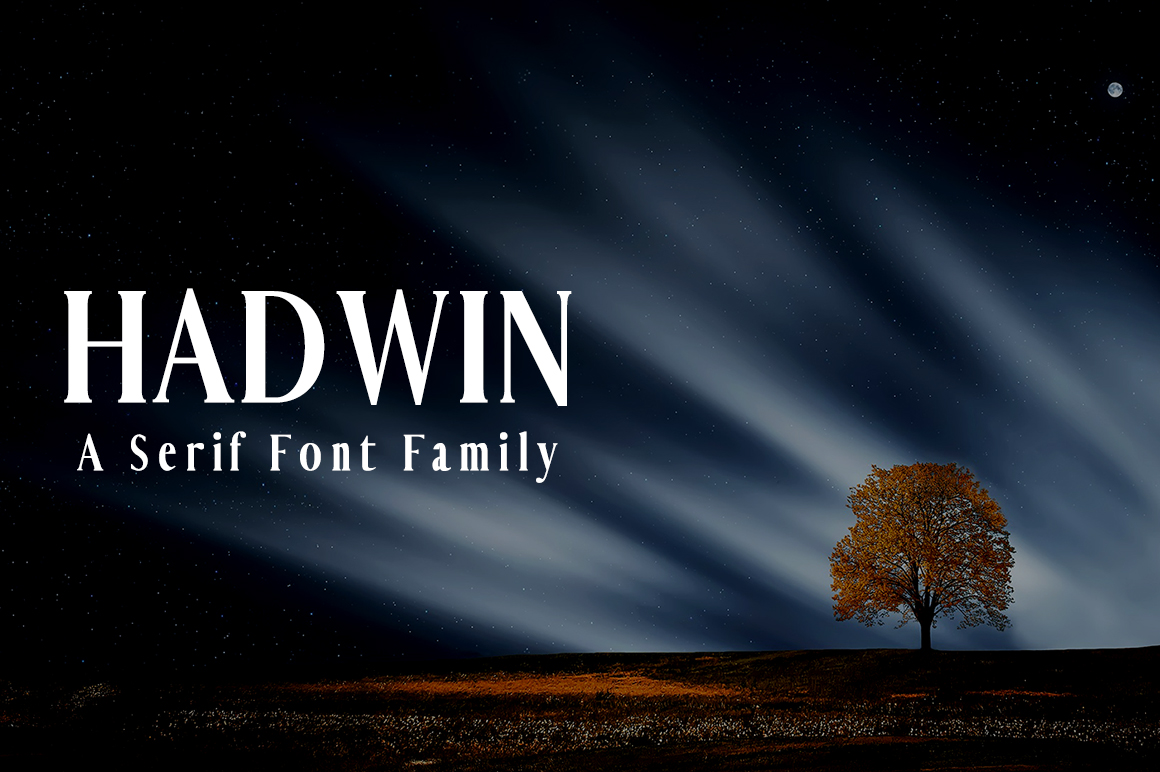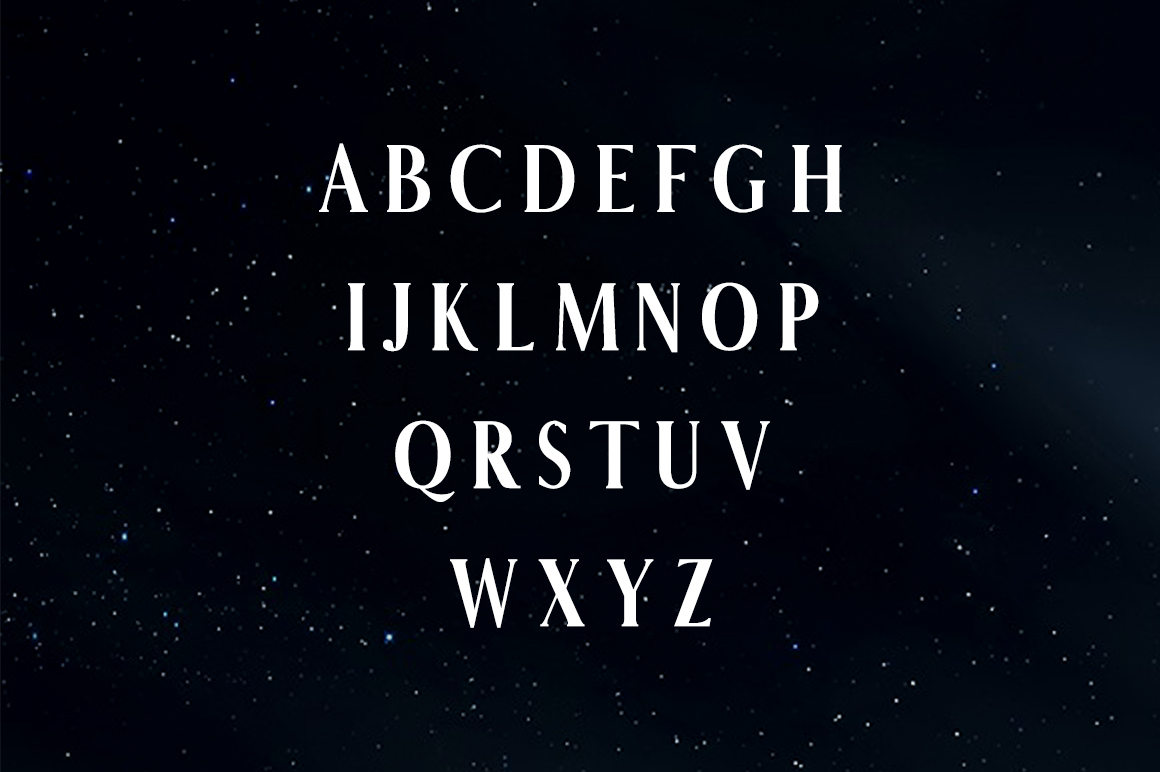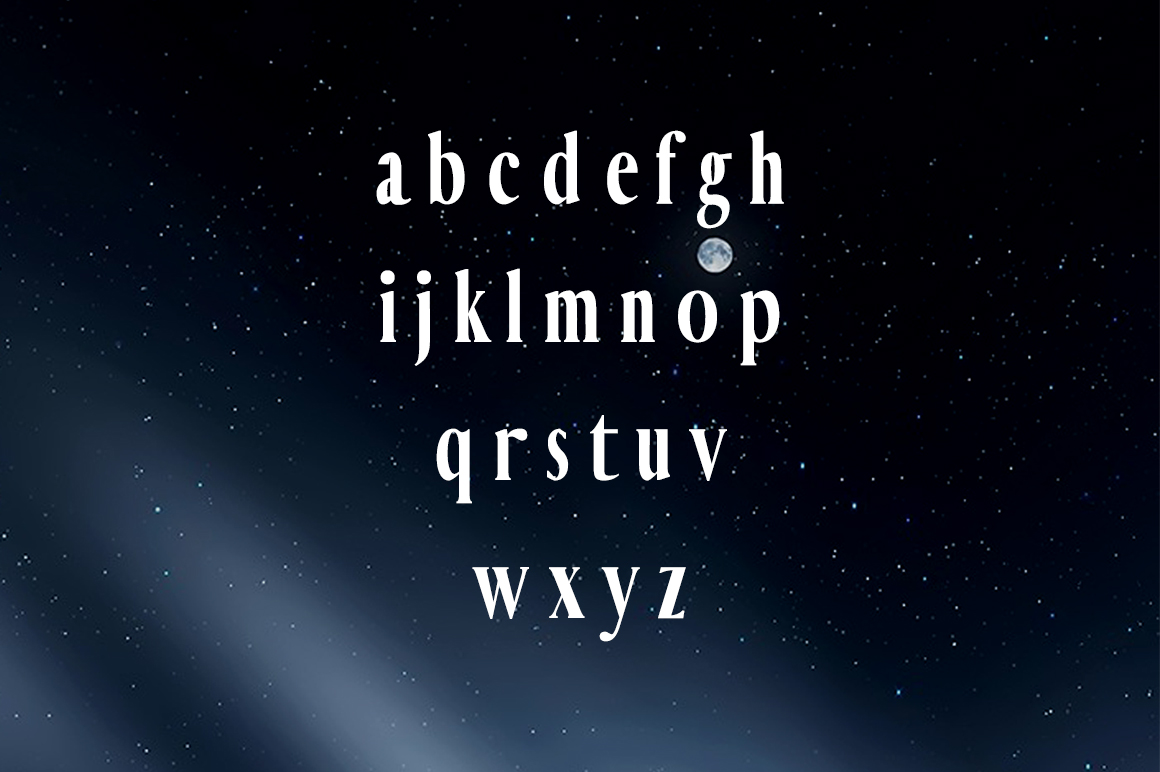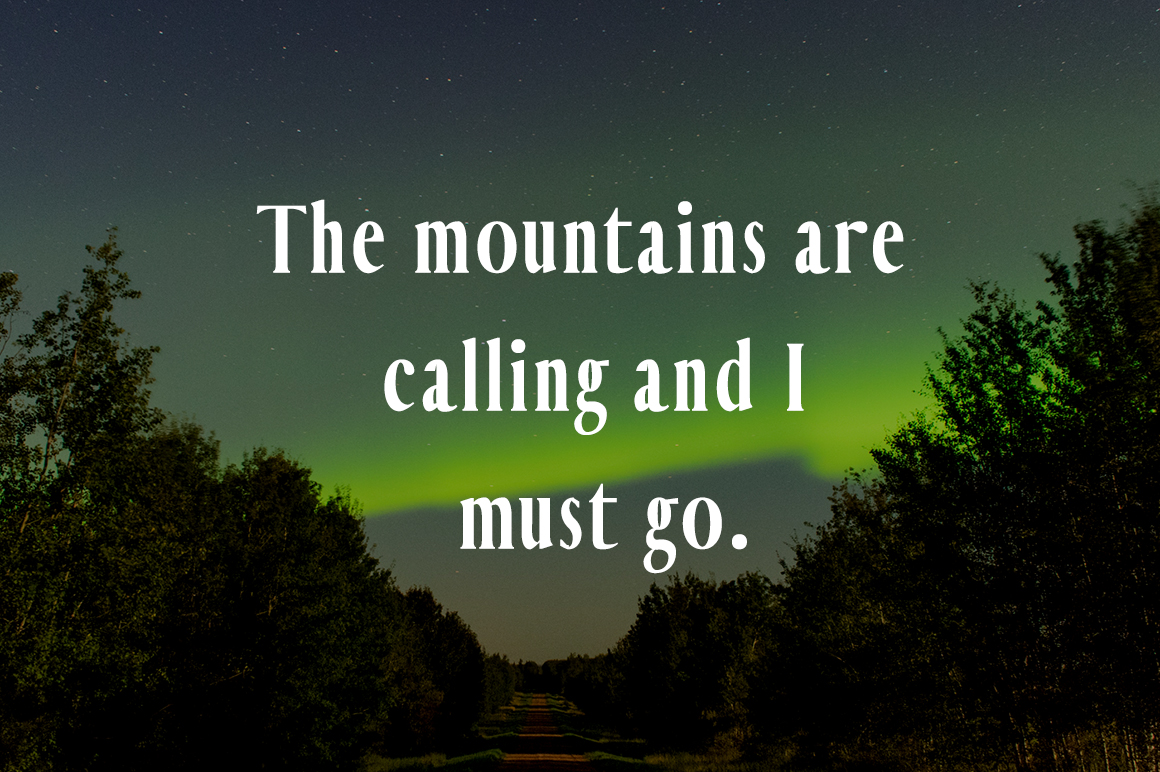
Hadwin Font: An Elegant Serif Typography for Modern Logo Design
About the Hadwin Font
The wait is over! The incredible Hadwin Font is now available for your design toolkit. Hadwin is a beautiful font, a serif that is soft on the eyes and stunning on various designs. Modern and clean, Hadwin is a great option for a large number of designs needing some warm and appeal.
Hadwin’s soft serifs and clean lines make it ideal for headlines, logos, and short-form text in branding materials and posters. Its elegance lends itself well to packaging for high-end products or sophisticated publications. However, its relatively high x-height makes it less suitable for extended body copy or UI elements where readability over long passages is crucial.
For a balanced pairing, consider a geometric sans-serif like Futura for a modern contrast, or a warmer, more traditional serif such as Garamond for a classic feel. A script font like Playfair Display could also add a touch of elegance depending on the application.
Hadwin projects a sophisticated and approachable personality, conveying both modern style and a sense of refined warmth. It’s a versatile choice for brands seeking a balance between elegance and approachability.